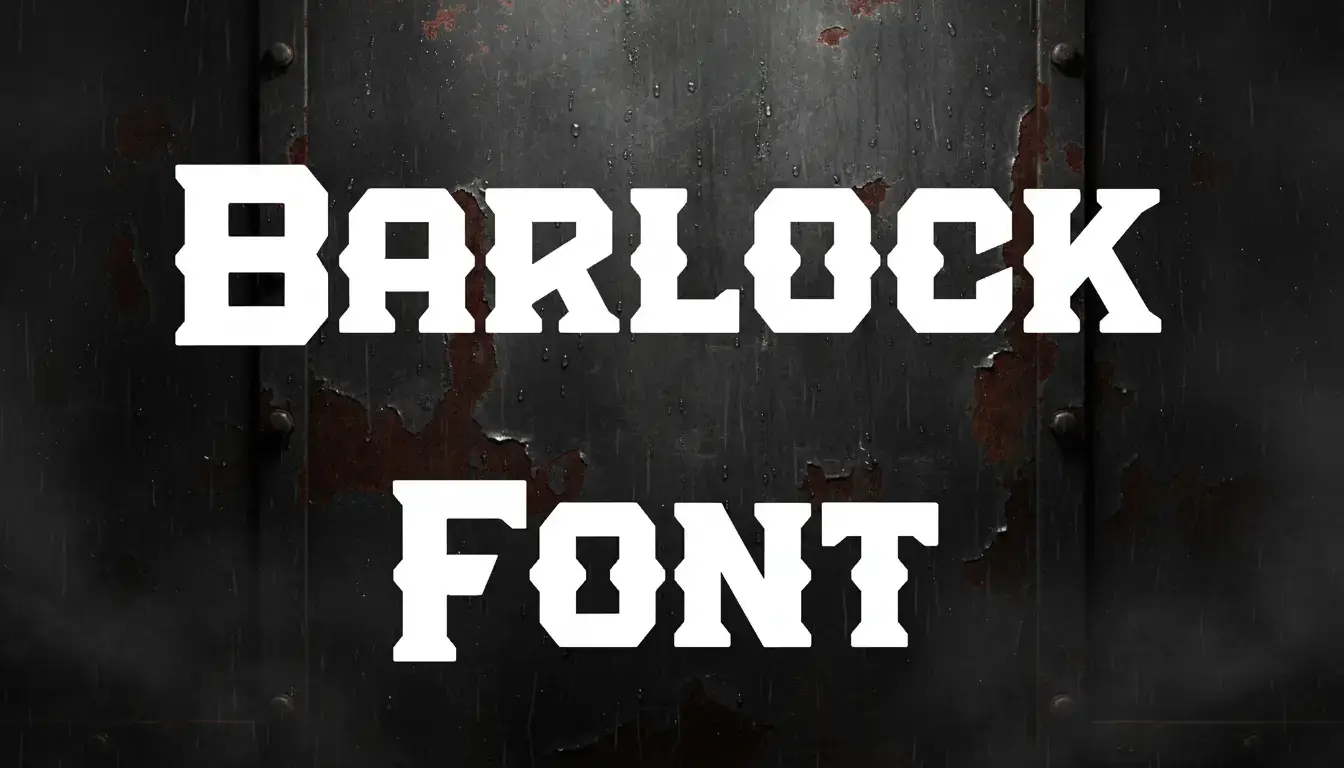
Barlock Font
Barlock is a Western font created by Arterfak Project. Its letters feel straight out of a cowboy movie, sturdy and full of old-west character. You can download it for free and test it with your own words in the preview above.
What You Can Type With Barlock
Barlock covers the full alphabet in upper and lowercase, plus all ten numbers, so you can set names, dates and prices without switching fonts. Everyday marks like &, !, ? and @ are there too. It has 12 accented letters, but not the full set for Spanish or French, so test any non-English words first.
Where Barlock Works Best
Think of Barlock for rodeo posters, saloon signs and country music flyers. Try it in brown, rust or cream on a paper texture for the full old-west look.
What fonts pair well with Barlock?
A sturdy slab serif or a simple serif works well for the smaller text.